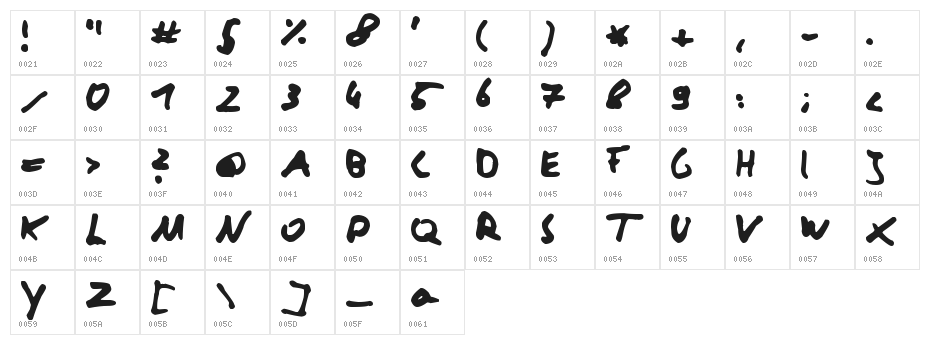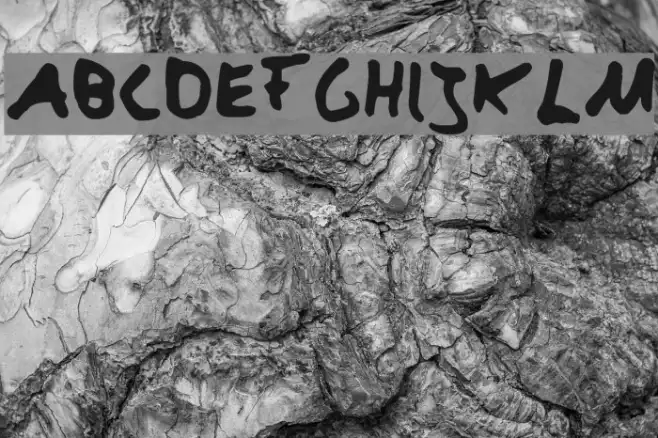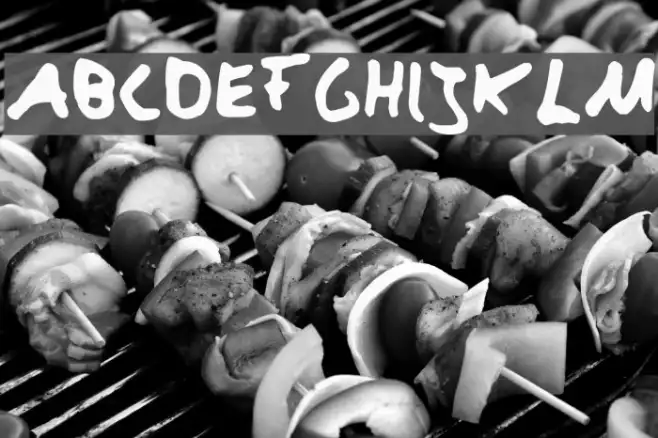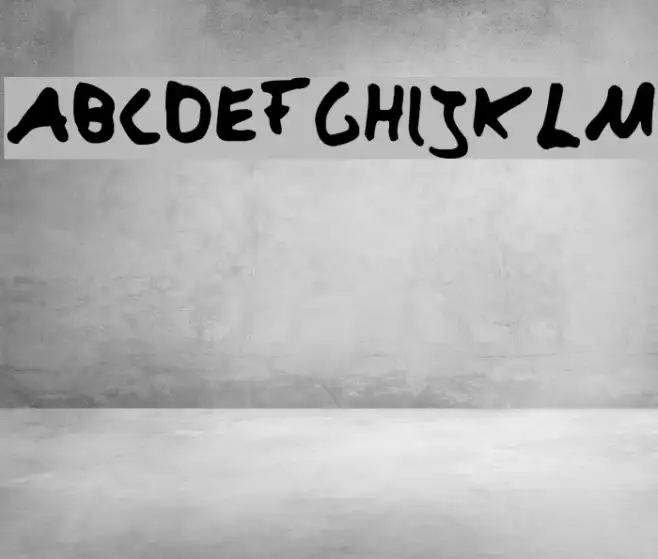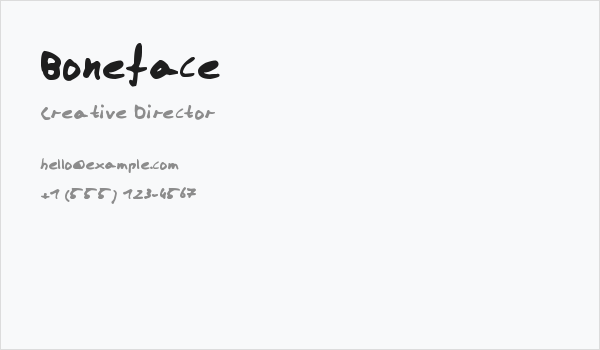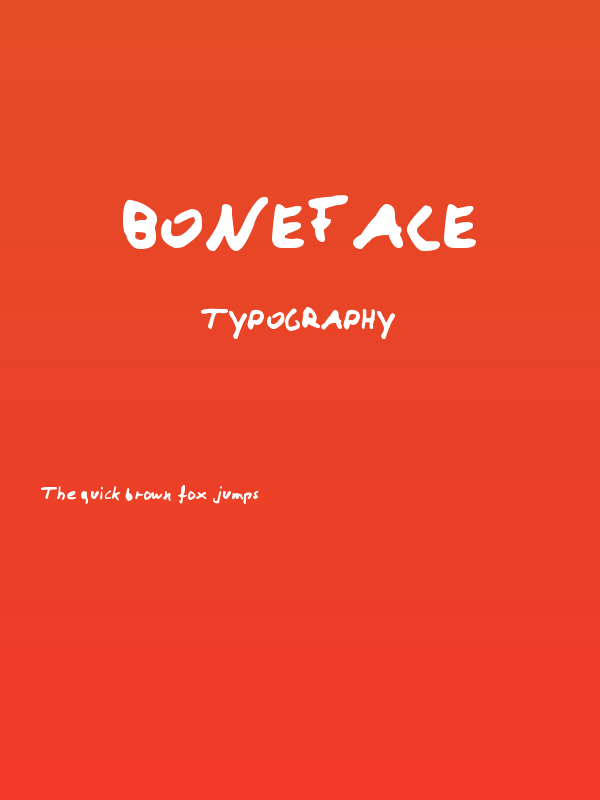
Boneface Font
Boneface Description
This font features a bold and expressive handwritten style, characterized by its thick strokes and playful, irregular shapes. The letters have a casual, organic feel, with varying heights and widths that give it a dynamic and lively appearance. The uppercase and lowercase letters maintain a consistent style, while the numbers and special characters complement the overall aesthetic. The font's boldness and unique character make it stand out, ideal for projects that require a personal touch or a creative flair.
| Proposed Projects | Ideal for creative projects such as posters, album covers, greeting cards, and branding materials that require a personal and artistic touch. |